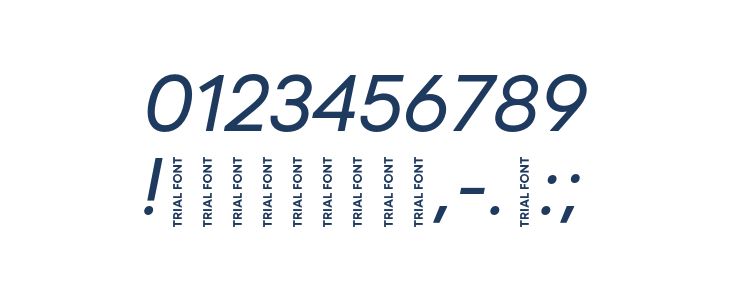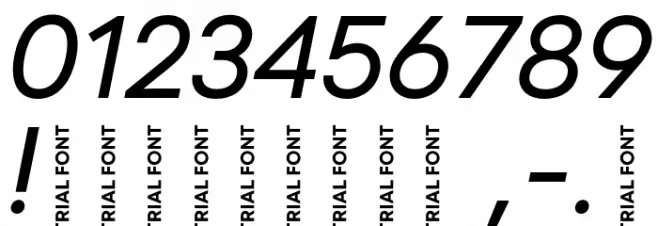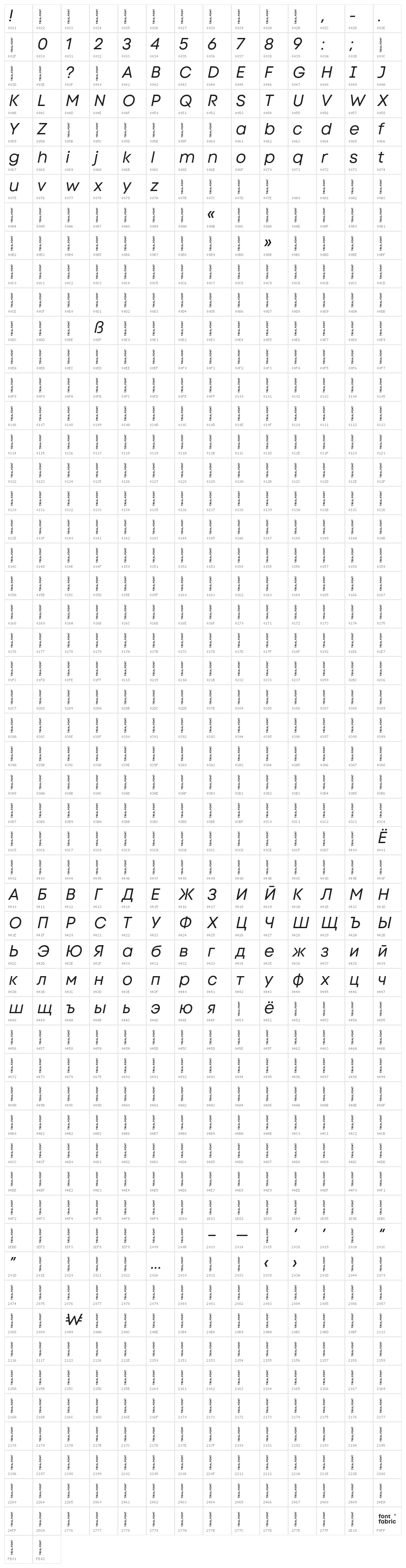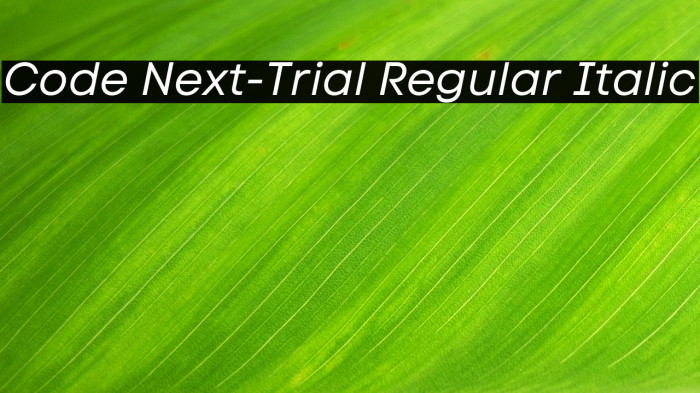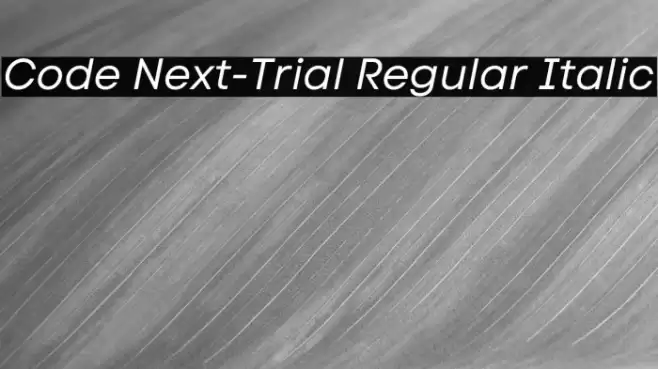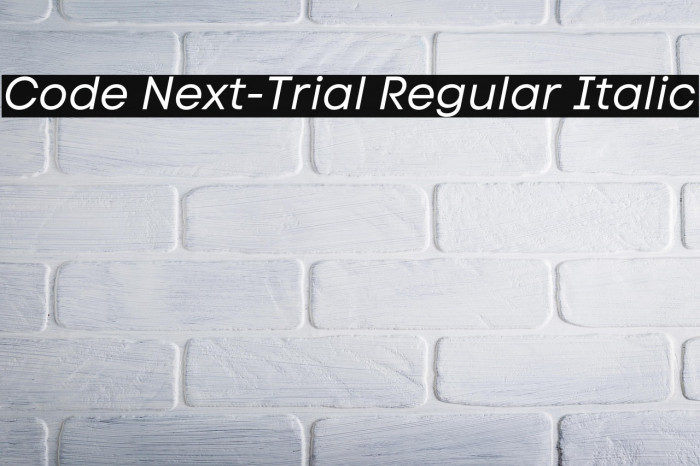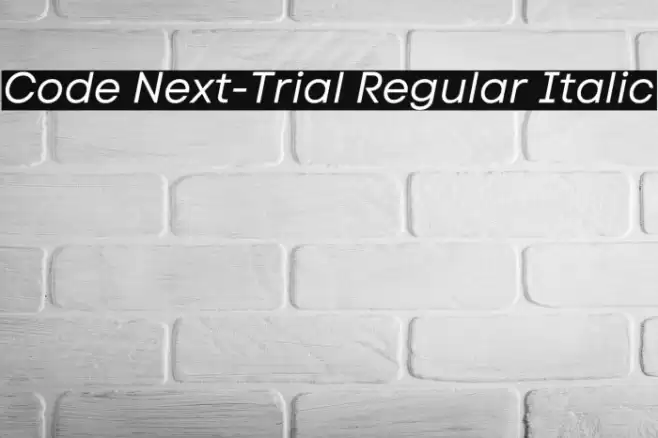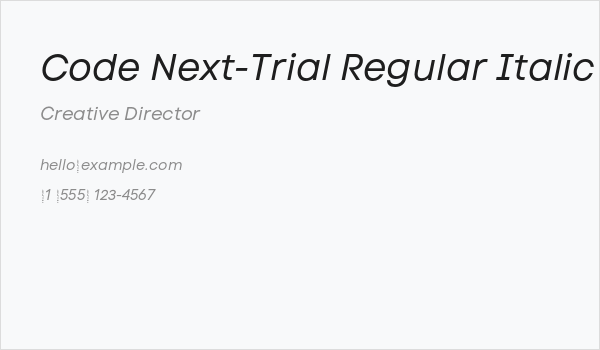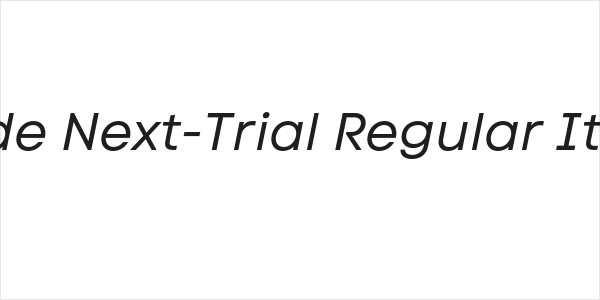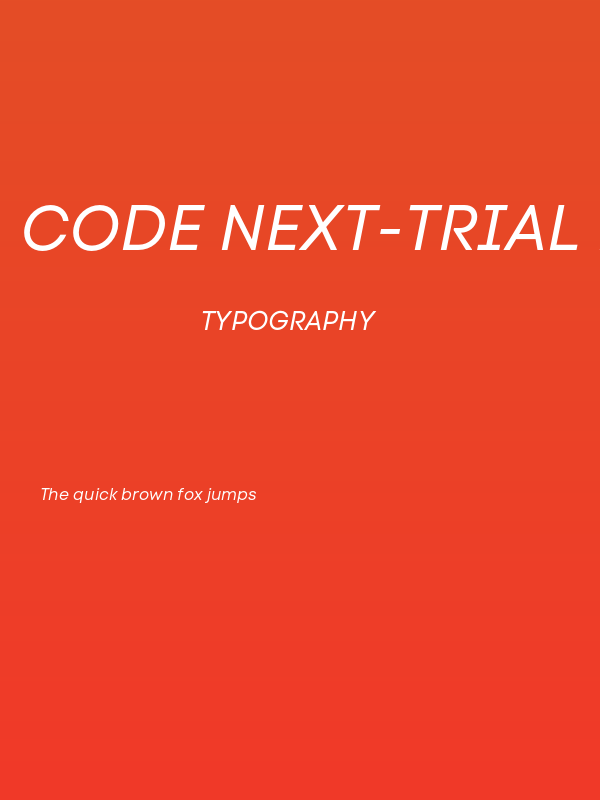
Code Next-Trial Regular Italic Font
Code Next-Trial Regular Italic Description
This is a sleek and modern sans-serif typeface with a clean and streamlined appearance. The characters are slightly slanted, giving it an italicized look that adds a dynamic and contemporary feel. The strokes are consistent in weight, providing a uniform and balanced appearance. The font maintains a normal width, ensuring readability while still conveying a sense of elegance and sophistication. The character spacing is normal, which aids in legibility and makes it suitable for various applications. The overall style is modern, making it versatile for both digital and print media.